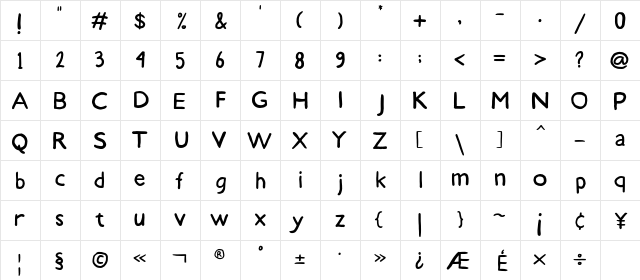
GIRISENNA Girisenna Font Preview
GIRISENNA Girisenna
GIRISENNA Girisenna Font Details
| Style | Girisenna |
| Foundry | Gitayogi |
| Designer | Gitayogi |
Design Context for GIRISENNA Typeface
GIRISENNA takes a measured approach to typography — its balanced proportions and neutral character make it a reliable workhorse for both digital and print work.